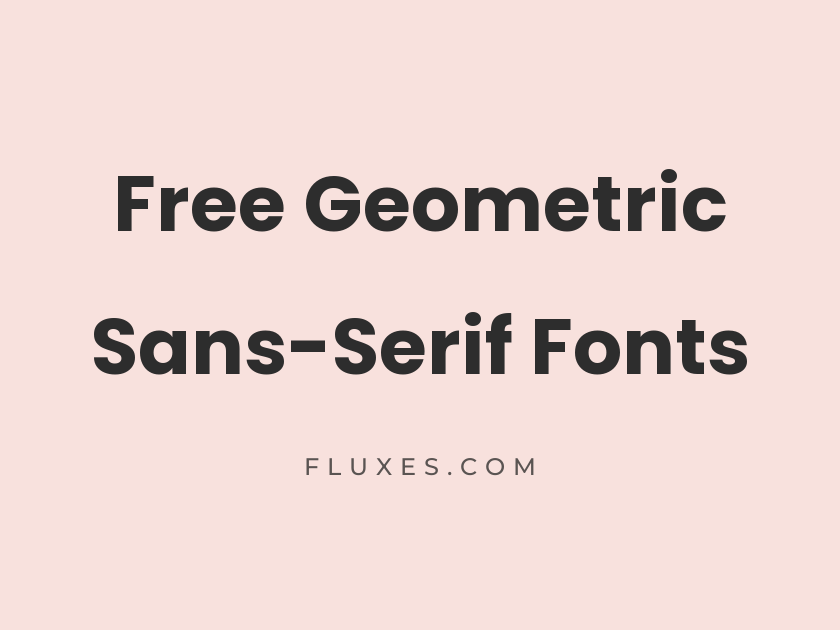
59 Best Free Geometric Sans-Serif Fonts
Geometric sans-serif fonts are built on simple shapes: near-perfect circles, squares, and triangles distilled into letterforms. That construction gives them a clean, confident, modern voice, which is why they turn up everywhere from tech startup branding to fashion logos to wayfinding systems. Anyone hunting for free geometric sans-serif fonts on Google Fonts has an enormous amount to choose from, ranging from faithful Futura-style revivals to quirky variable-width experiments built for screens.
The list below covers the full range: warm and rounded, sharp and technical, elegant and minimal, bold and industrial. Whether you need a Futura alternative for a logo, a geometric workhorse for body copy, or a display face for a poster, there is a genuinely free option here worth downloading.
1. Poppins
Clean circles and squares, built for modern brands
Poppins has become the default geometric sans for a reason: its true circular curves and even stroke weight give it a friendly, approachable geometry that still reads as professional. It works equally well as a headline face and as UI text, which explains its constant presence in app interfaces and marketing sites alike.
Pair it with a humanist serif for body copy if you want contrast, or lean on its wide weight range and use it for everything.
2. Montserrat
Inspired by old signage in Buenos Aires
Montserrat began as a tribute to the painted lettering on old buildings and posters in Buenos Aires, and that urban, Art Deco-adjacent origin still shows in its slightly squared curves. It sits a touch less mechanically geometric than Futura, which makes it easier to read in longer stretches of text.
3. Quicksand
Soft, rounded shapes for friendly branding
Rounded terminals soften every letter here, giving Quicksand a light, approachable feel that suits wellness brands, children’s products, and anything that wants to avoid looking corporate. It gets muddy at very small sizes, so keep it for headlines and short labels rather than dense paragraphs.
4. Comfortaa
Rounded geometry with a calm, modern mood
Comfortaa takes the circular-o geometric structure and rounds off every corner, producing a face that feels understated and calm rather than loud. It is best reserved for display sizes and short bursts of text, since its softness can blur together in a paragraph.
5. Jost
A free, open geometric alternative to Futura
Built as an homage to Bauhaus-era geometric type, Jost delivers that classic Futura silhouette without the licensing cost. It is a natural pick for anyone searching for free Futura alternatives on Google Fonts, especially for branding work that wants a vintage-modern feel.
6. Questrial
Minimal geometric letterforms for confident headlines
Questrial only comes in a single weight, but that weight is a wonderfully clean, wide geometric sans that looks sharp in navigation bars, headlines, and logotypes. Its simplicity is the whole point.
7. League Spartan
A bold, modern take on the Spartan classic
League Spartan revives the geometric Spartan style of the early twentieth century with tightened spacing and a bolder presence, making it a strong candidate for logo work and impact headlines. It carries the same confident, circular-o DNA as Futura but with a slightly more contemporary posture.
8. Josefin Sans
Art Deco elegance with delicate geometric curves
Thin strokes and tall, narrow proportions give Josefin Sans an unmistakable 1920s Art Deco mood. It suits fashion, beauty, and editorial branding beautifully, though its delicacy means it should stay out of small body text.
9. Poiret One
Ultra-thin geometric letters for elegant display type
Poiret One is pure decoration: an extremely thin, elegant geometric face meant for large display type, monograms, and luxury branding. Do not expect to read a paragraph in it comfortably; it exists for glamour, not legibility.
10. Julius Sans One
Sparse, minimal geometry for refined headlines
Every letter in Julius Sans One is pared down to its barest geometric essentials, which makes for a striking, airy headline face. It has generous letter spacing built in, so it works well in all caps for editorial mastheads and invitations.
11. Raleway
Elegant proportions with a single-story lowercase a
Raleway leans geometric without being rigid; the single-story lowercase a and light default weight give it a refined, slightly fashion-forward character. It pairs nicely with a slab serif for editorial layouts.
12. DM Sans
Low-contrast geometry optimized for screens
DM Sans was designed specifically for interfaces and small text on screens, so its geometric shapes are subtly adjusted for legibility rather than pure mathematical purity. It is a dependable choice for product design and UI type systems.
13. Outfit
A community-built geometric sans for modern interfaces
Outfit grew out of an open-source community project and has quickly become a favorite for tech branding and web design. Its even, rounded geometry feels contemporary without any of the retro baggage that comes with older Futura-style faces.
14. Sora
Variable geometric weights for flexible digital products
Sora offers a wide variable weight range wrapped in a distinctly technical, screen-first geometry, making it a solid pick for SaaS products and app interfaces. It feels crisp at every size without losing its geometric character.
15. Urbanist
Crisp, contemporary geometry for digital branding
Urbanist keeps its circles tight and its counters open, resulting in a clean, airy typeface that reads well on screens of every size. It is a quietly versatile choice when a project needs a modern feel without shouting for attention.
16. Space Grotesk
Quirky geometric letters with a technical edge
Space Grotesk grew out of a monospaced predecessor, and traces of that heritage still show in its slightly unusual proportions and distinctive character shapes. It has become something of a signature face for startup and crypto branding, thanks to its geometric backbone paired with a few offbeat details.
Use it for headlines where its personality can shine; it gets busier at very small sizes.
17. Manrope
A dependable open-source workhorse with geometric roots
Manrope sits closer to a grotesque than a pure geometric face, but its rounded, near-circular curves and even proportions earn it a spot here. It is a reliable, free alternative when a project needs something between geometric precision and grotesque neutrality.
18. Rubik
Slightly rounded corners for a friendly geometric feel
Originally developed to support Hebrew alongside Latin, Rubik carries subtly rounded corners that soften its otherwise strict geometric grid. That warmth makes it popular in consumer app branding and casual editorial design.
19. Nunito
Rounded geometric shapes built for easy reading
Nunito balances geometric simplicity with rounded terminals and generous spacing, which makes it one of the more comfortable geometric-leaning fonts to actually read in paragraph form. Many designers use it for body copy specifically because it avoids the coldness some pure geometric faces carry.
20. Baloo 2
Bold, rounded geometry with a friendly bounce
Baloo 2 is chunky, rounded, and cheerful, with thick strokes that give it real presence at display sizes. It belongs to a large multi-script family, so it is also a smart choice for projects needing consistent geometric character across several languages.
21. Fredoka
Playful, bouncy geometry for lighthearted branding
Fredoka takes rounded geometric letterforms and pumps up the personality, making it a go-to for children’s brands, playful apps, and packaging that wants to feel fun rather than serious. Its heavier weights work best; the thinner ones lose some of that bounce.
22. Varela Round
Soft, rounded geometry made for mobile screens
Varela Round was built with mobile interfaces in mind, and its soft, evenly rounded shapes hold up cleanly at small sizes. It is a comfortable, understated option whenever a project wants gentle geometry without any sharp edges.
• Language support: Latin, Latin Extended, Hebrew, Vietnamese
23. Varela
A restrained, non-rounded companion to Varela Round
Varela
Varela strips away the rounded corners of its sibling for a slightly more restrained, straightforward geometric grotesque. It is a low-key option that works well in interfaces where the rounder version might feel too soft.
24. Exo
Futuristic geometry with a technical, engineered feel
Exo
Exo leans into a futuristic, engineered aesthetic, with angular details tucked into an otherwise geometric skeleton. It suits gaming, technology, and science-fiction-adjacent branding especially well.
25. Exo 2
A refined, expanded sibling built for wider use
Exo 2 refines its predecessor with broader language support and a slightly more balanced rhythm, making it easier to use across longer text while keeping the same technical, geometric personality.
26. Orbitron
Bold sci-fi geometry for uppercase-only headlines
Orbitron is unapologetically futuristic, built almost entirely around uppercase letterforms with a strong sci-fi identity. It has no real business in body text but earns its keep on posters, logos, and anything that wants a spaceship-console mood.
27. Michroma
Wide, bold geometric letters for tech logos
Michroma
Michroma is wide, heavy, and unapologetically mechanical, which makes it a favorite for technology logotypes and app icons. There is only one weight available, but it is a strong one.
28. Rajdhani
Squared-off geometry with an engineered, technical tone
Rajdhani compresses its geometric shapes into squarish proportions that feel engineered rather than organic, giving it a natural home in dashboards, data visualizations, and tech branding. It stays legible even in its condensed feel, which is not always true of similarly angular faces.
29. Chakra Petch
Angular, technical geometry for gaming interfaces
Chakra Petch
Chakra Petch cuts sharp angles into its otherwise geometric letters, landing somewhere between a display face and a functional UI font. It reads well in gaming and technology contexts where a slightly synthetic edge is welcome.
30. Play
Clean geometric grotesque built for screen legibility
Play
Developed in Norway specifically for on-screen reading, Play combines geometric simplicity with just enough grotesque neutrality to stay legible at small sizes. It is a practical, no-fuss choice for interface text.
31. Oxanium
Wide geometric letters for gaming and crypto brands
Oxanium
Oxanium’s wide, slightly futuristic geometry has made it a common sight in gaming and blockchain branding. It carries enough personality for headlines without tipping into total illegibility, unlike some of its more extreme sci-fi cousins.
32. Electrolize
Single-weight geometric display with a retro-tech mood
Electrolize
Electrolize offers just one weight, but it is a distinctive one: narrow, mechanical, and evocative of early digital displays. Save it for short headlines and labels rather than running text.
33. Aldrich
Retro-futuristic geometry reminiscent of vintage computer displays
Aldrich
Aldrich channels a retro-futuristic, almost robotic feel, with geometric shapes that look like they belong on an old computer terminal. It is a fun, specific-purpose choice for sci-fi or nostalgic tech branding.
34. Quantico
Angular geometric letters with a military edge
Quantico
Quantico’s sharp, slightly stenciled geometry gives it a military or tactical feel that suits gaming, defense, and technical branding. Its bold weight holds up well on posters and app icons.
35. Turret Road
Unusual geometric curves for distinctive tech branding
Turret Road
Turret Road offers an uncommon take on geometric construction, with curves that feel slightly mechanical and unfamiliar in an appealing way. It works best in short headlines where its unusual character can register clearly.
• Styles: 6 weights (Extra-Light to Extra-Bold)
36. Prompt
Clean Thai-Latin geometry with rounded loops
Prompt
Prompt was designed to handle Thai and Latin scripts with equal geometric clarity, and the Latin set carries a friendly, rounded-loop character of its own. It is a strong option for multilingual branding that still wants a modern geometric look.
37. Kanit
Bold geometric letters built for Thai-Latin projects
Kanit
Kanit brings a confident, slightly condensed geometric structure that reads well in bold headline settings. Like Prompt, it was built to serve Thai and Latin scripts together, making it a practical pick for regional and international branding alike.
38. Yantramanav
A geometric humanist companion for multilingual layouts
Yantramanav
Yantramanav was designed as a Devanagari companion to Roboto, and its Latin characters carry a similarly geometric, no-nonsense structure. It is a sensible, understated choice where multilingual consistency matters more than personality.
• Styles: 6 weights (Thin to Black)
39. Bai Jamjuree
Slightly rounded geometry for Thai-Latin branding
Bai Jamjuree
Bai Jamjuree softens its geometric letterforms just enough to feel approachable, while keeping the structural clarity needed for both Thai and Latin text. It fits comfortably into contemporary branding work across either script.
40. Syne
Quirky variable geometry for fashion and editorial work
Syne
Syne breaks from strict geometric convention with deliberately unusual proportions and a wide variable-width range, making it a favorite in fashion, art, and editorial branding that wants to look intentionally offbeat. It rewards designers who want a geometric base with genuine personality rather than pure neutrality.
• Language support: Latin, Latin Extended, Greek
41. Unbounded
Maximalist geometric display for bold statements
Unbounded
Unbounded goes big: thick strokes, wide proportions, and a variable axis that lets it scale from confident to overwhelming. It is built for headlines and hero text, not paragraphs.
• Styles: 8 weights (Extra-Light to Black)
42. Grandstander
Hand-touched geometric letters with a playful wobble
Grandstander
Grandstander keeps the circular geometric bones but adds a slightly hand-finished irregularity to the details, giving it a playful, approachable energy. It suits youth-oriented branding and packaging that wants warmth alongside structure.
43. Righteous
Bold retro geometric display for badges and logos
Righteous has a chunky, rounded retro character that looks right at home on badges, posters, and vintage-inspired logos. There is only one weight, but its personality does most of the work.
44. Days One
Sturdy geometric display for confident short headlines
Days One
Days One is thick, sturdy, and unmistakably geometric, built to command attention in short bursts rather than paragraphs. It works especially well in all caps.
• Language support: Latin, Cyrillic
45. Coda
Rounded geometric display for badges and banners
Coda
Coda’s rounded, slightly heavy geometry gives it a friendly, badge-like quality, and it comes with an even heavier weight for extra punch. Keep it for headlines and short labels; it is not meant for body copy.
• Styles: 2 weights (Regular, Extra-Bold)
46. Big Shoulders
Industrial condensed geometry for editorial headlines
Big Shoulders
Big Shoulders takes cues from American industrial signage, condensing its geometric letterforms into tall, sturdy shapes with real editorial swagger. Its large variable family includes display, text, and inline variants, giving it unusual flexibility for a condensed face.
47. Khand
Condensed, squared geometry with quiet strength
Khand
Khand compresses its geometric shapes into a squared, upright rhythm that works well for headlines needing a compact footprint. It has a restrained, no-frills character that suits utilitarian and editorial design alike.
48. Yanone Kaffeesatz
Light, condensed geometry for editorial headers
Yanone Kaffeesatz
Yanone Kaffeesatz is narrow and light on its feet, making it a favorite for magazine-style headers and section labels that need to say a lot in a small horizontal space. Its lighter weights can thin out at small sizes, so reserve it for display use.
49. Actor
A plain, functional geometric grotesque for labels
Actor
Actor is unfussy and functional, a straightforward geometric grotesque that works quietly in the background of a design system rather than demanding attention. It is best suited to labels, captions, and interface text.
50. Telex
Simple, utilitarian geometric letters for interfaces
Telex
Telex strips geometric construction down to its plainest form, with no decorative flourishes at all. It is a practical, if unglamorous, choice for interface text where clarity matters more than character.
51. Geologica
Flexible variable geometry for modern design systems
Geologica
Geologica blends geometric structure with grotesque neutrality across a wide variable axis, giving designers a single flexible family that can flex from light editorial text to bold display headlines. It feels current without leaning on any particular era’s design trends.
52. Plus Jakarta Sans
A hybrid geometric sans from Indonesian design studios
Plus Jakarta Sans blends geometric circles with slightly humanist proportions, resulting in a face that feels modern and warm at once. It has quickly become popular in branding and web design that wants geometric structure without total rigidity.
53. Figtree
Soft geometric rounding for approachable interfaces
Figtree keeps its shapes geometric but rounds off the terminals just enough to feel friendly rather than clinical. It reads comfortably at UI sizes, which makes it a solid pick for product and app design.
54. Livvic
Elegant geometric-grotesque hybrid for fashion branding
Livvic
Livvic mixes geometric simplicity with a slightly elongated, elegant rhythm, giving it a fashion-forward feel that suits beauty and lifestyle branding. Its lighter weights carry real refinement in headline settings.
55. Antic
A classic geometric-grotesque revival for editorial work
Antic
Antic revives an early twentieth-century grotesque with distinctly geometric bones, landing somewhere between a true geometric sans and a period grotesque. It reads cleanly in editorial contexts that want a slightly historical feel without looking dated.
56. Chivo
A geometric grotesque with a single-story lowercase a
Chivo’s single-story lowercase a and rounded punctuation give it a geometric lean, even though its overall structure sits closer to a grotesque. It handles both display and body text well, making it a flexible, dependable choice.
57. Fjalla One
Condensed geometric grotesque built for strong headlines
Fjalla One compresses its geometric-grotesque letterforms into a tall, narrow shape that commands attention in headlines and posters. It can feel cramped at small sizes, so keep it large and bold.
58. Overpass
Highway-inspired geometry with a utilitarian, civic feel
Overpass borrows its structure from highway signage systems, giving it a geometric, utilitarian character that suits civic, transit, and infrastructure-themed branding. It is sturdy and legible at nearly any size.
59. Saira
A flexible variable family with geometric-grotesque range
Saira
Saira spans an unusually wide range of widths and weights, all built on a geometric-grotesque skeleton that adapts easily from condensed labels to expanded headlines. That flexibility makes it a practical single-family solution for design systems that need several variants without switching typefaces.
How to choose and pair geometric sans fonts
Start by matching weight to purpose. Thin geometric faces like Poiret One or Julius Sans One belong at display sizes, while workhorses like Poppins, Nunito, or DM Sans can carry body copy comfortably.
Watch legibility at small sizes. Many of the most stylish geometric fonts, especially the rounded and thin ones, blur together below 14 pixels on screen.
Pair a strict geometric headline face with a more neutral grotesque or humanist body font if you want contrast. Reserve the most extreme display options, like Orbitron or Righteous, for short bursts of text rather than paragraphs.
Geometric sans-serif fonts remain one of the most useful categories in free type design, offering everything from Futura-style minimalism to playful rounded display faces. With this many free, well-made options on Google Fonts, there is little reason to reach for a paid alternative for most branding, editorial, or interface projects.